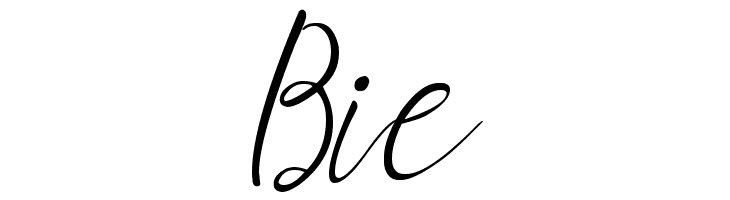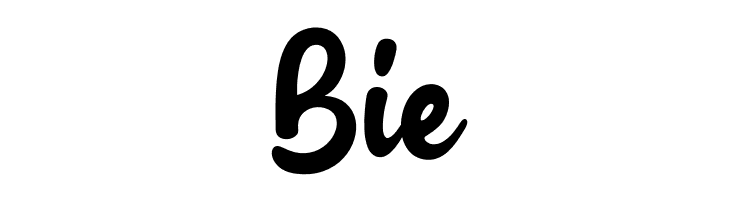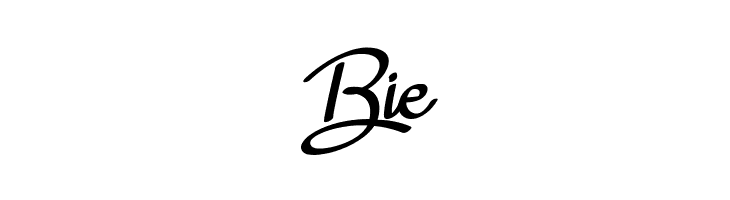
An elegant script font with flowing, cursive letterforms and decorative swashes.
A playful, double-line font with a whimsical and lively appearance.
A decorative, heart-themed font with romantic symbols and phrases.
A bold, playful script font with a handwritten style.
An elegant, flowing script font with ornate, cursive letterforms.
A playful and elegant script font with a handwritten style.
A bold, geometric font with a futuristic and segmented design.
A bold, geometric font with an industrial, military-inspired aesthetic.
A playful, hand-drawn font with a sketch-like, three-dimensional appearance.